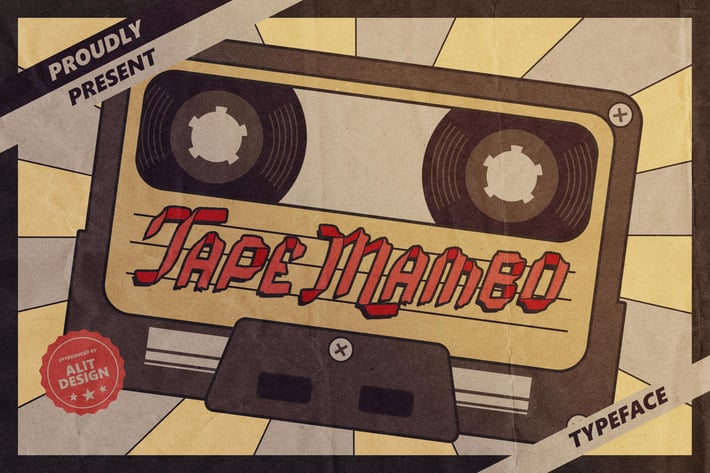
Tape Mambo Typeface
The Tape Mambo typeface is inspired by the unique shape of the cassette tape. Which was very popular in the 90s. This font is perfect for music-themed designs, but for retro-themed designs it's also cool to use this Tape Mambo font.
A-Z Character Set
Numerals & Punctuations (OpenType Standard)
Stylistic Alternates
* Ligatures